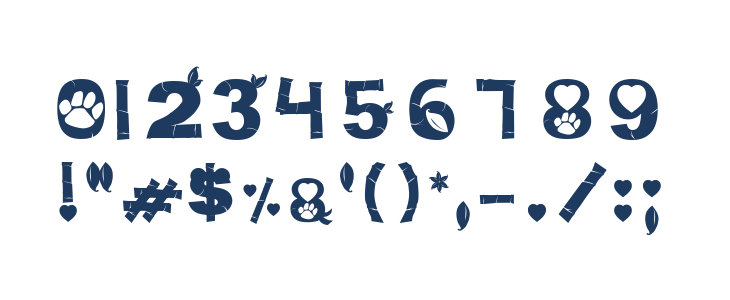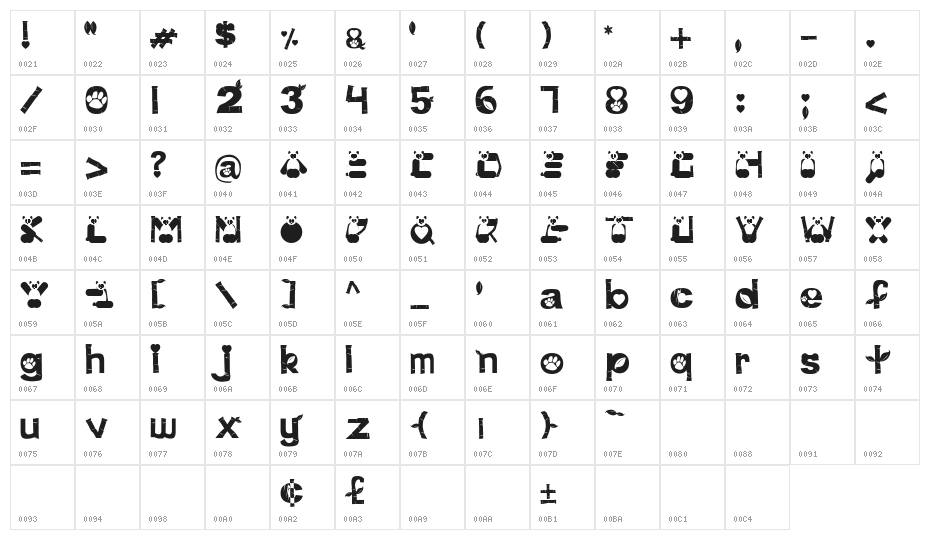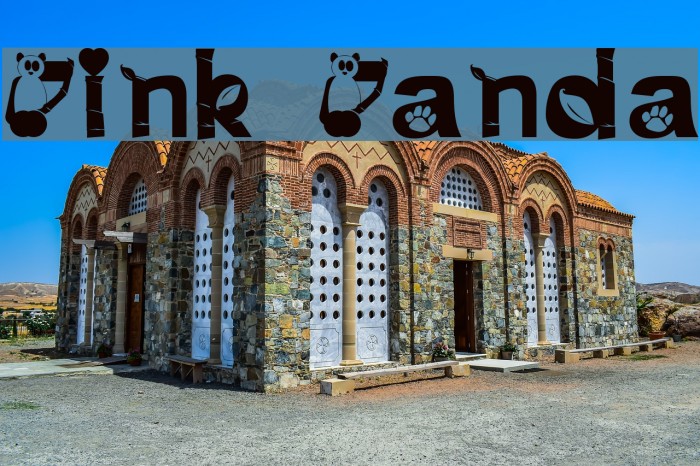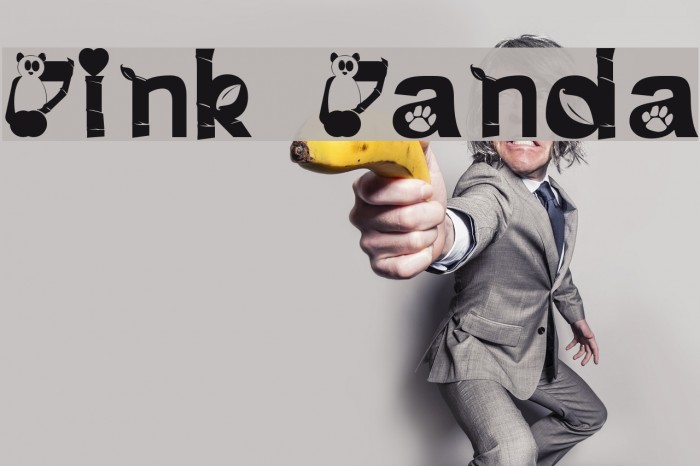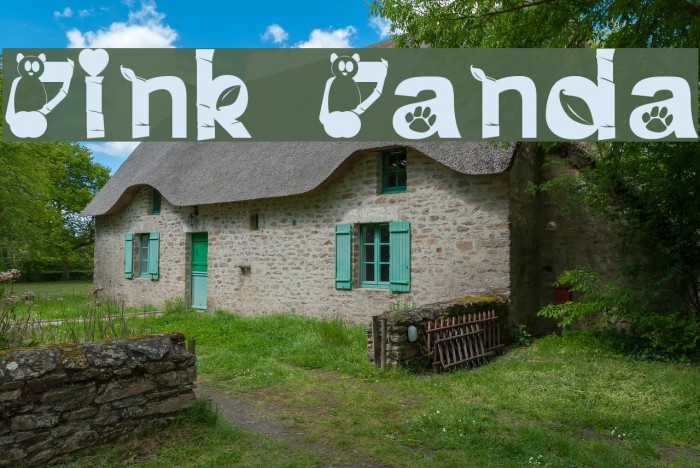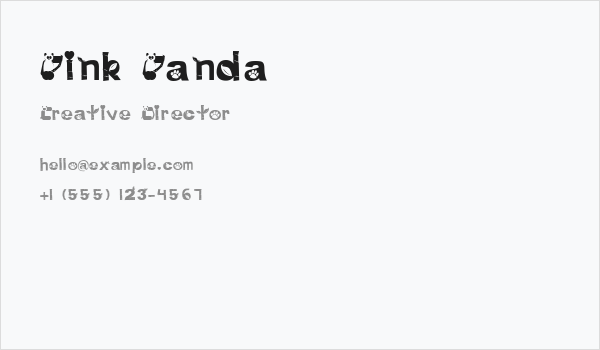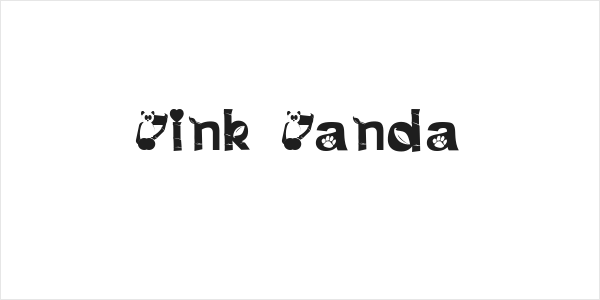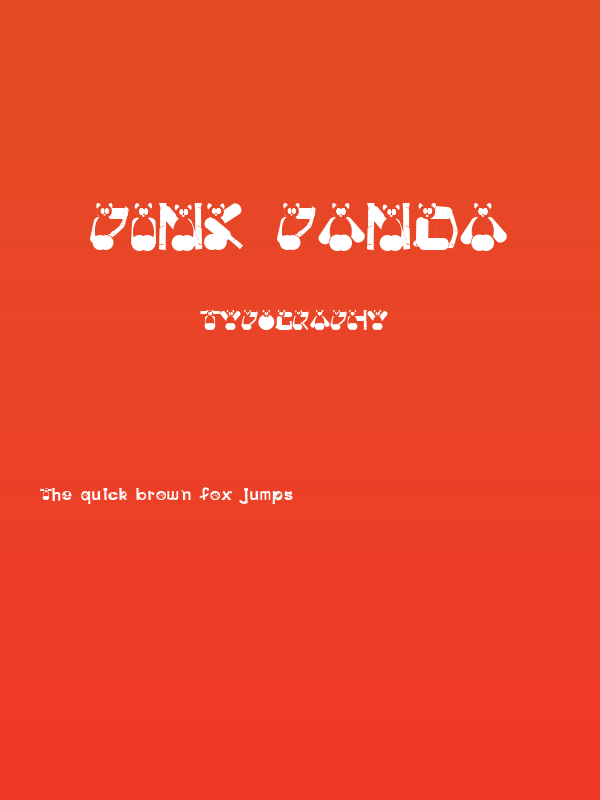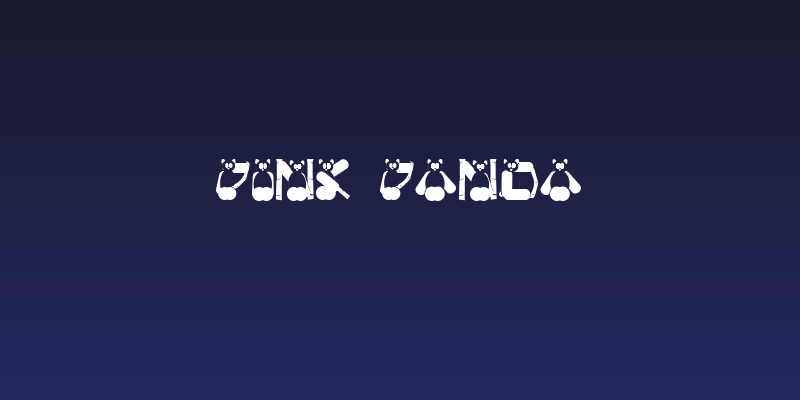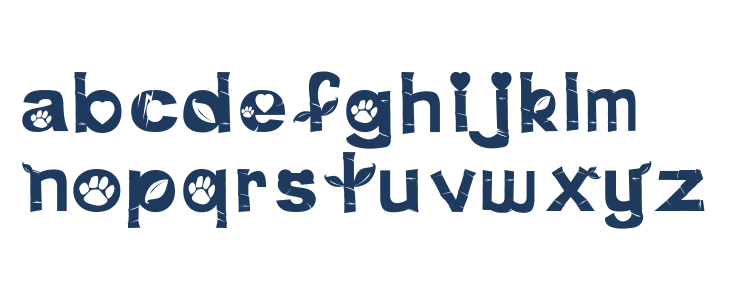
Pink Panda Font
Pink Panda Description
This playful and whimsical font features panda-themed characters, where each letter is creatively integrated with panda elements such as ears, paws, and faces. The uppercase letters are particularly distinctive, with pandas sitting atop or forming parts of the letters. The lowercase letters maintain a cohesive theme with subtle panda motifs. Numbers and special characters also incorporate panda designs, making the font consistent and thematic throughout. The overall style is decorative and fun, appealing to a younger audience or for projects that require a lighthearted touch.